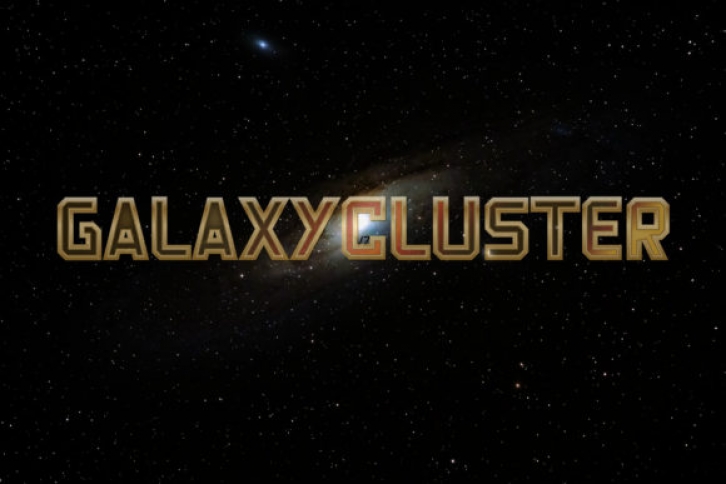
Galaxy Cluster is a bold and robotic looking display font. This font is ideal for writing web designs, business cards, or pretty much anything else that requires a unique touch.